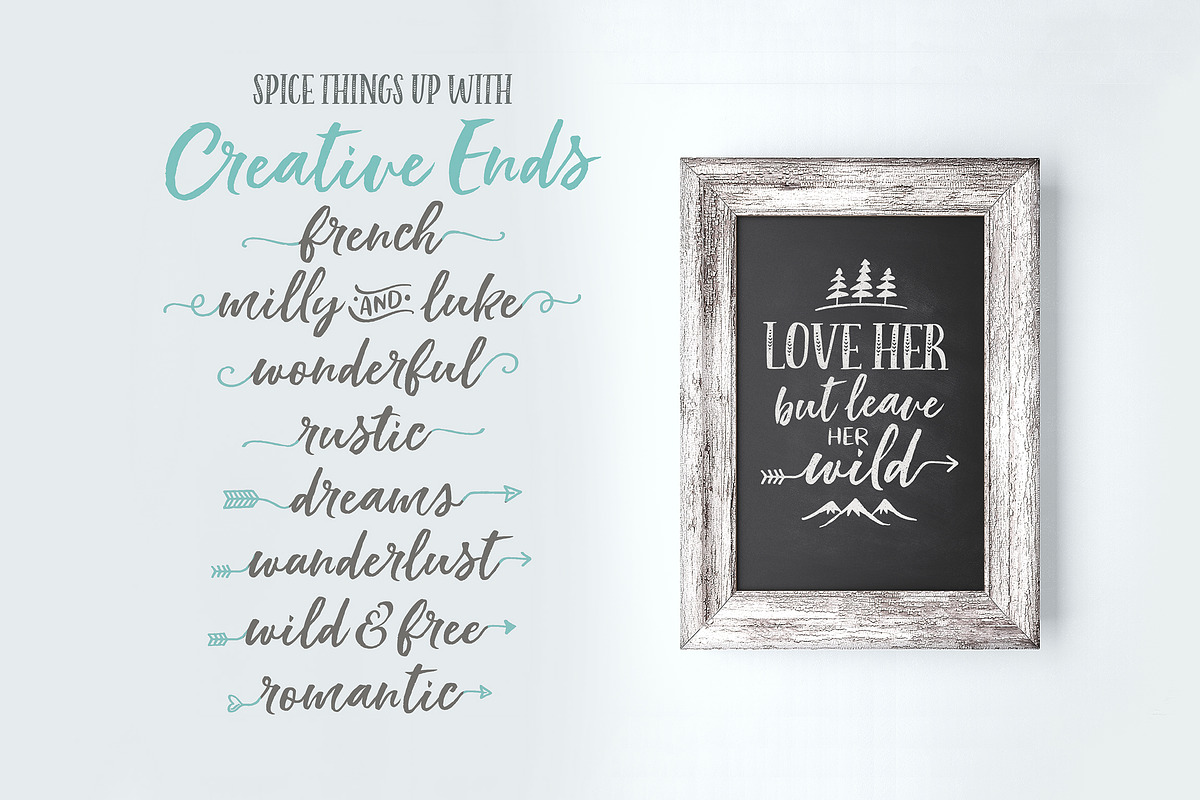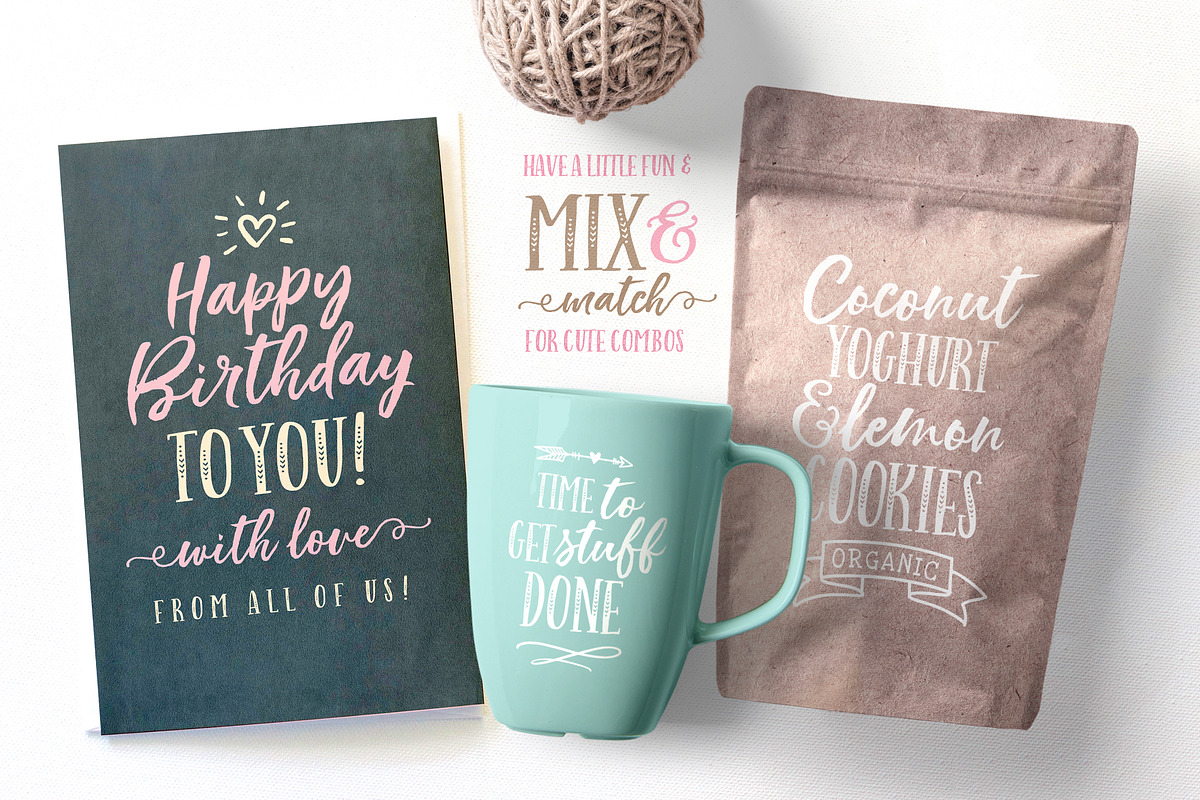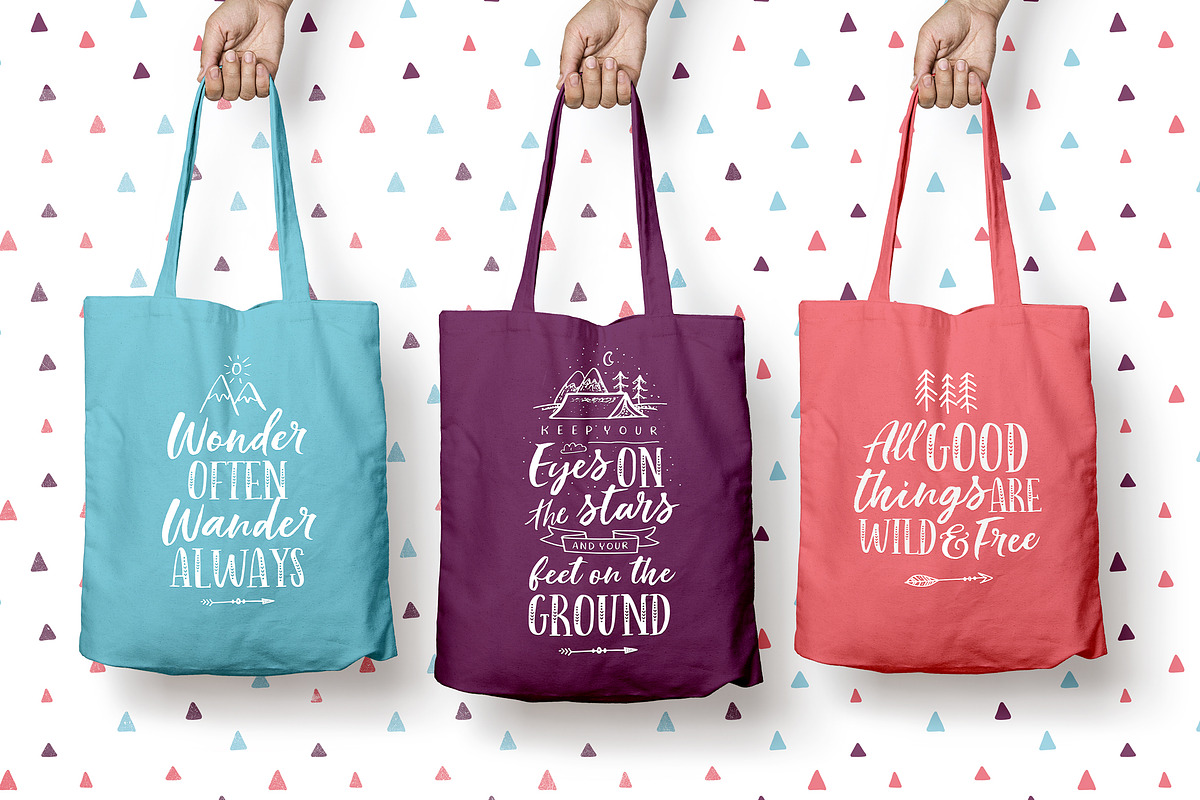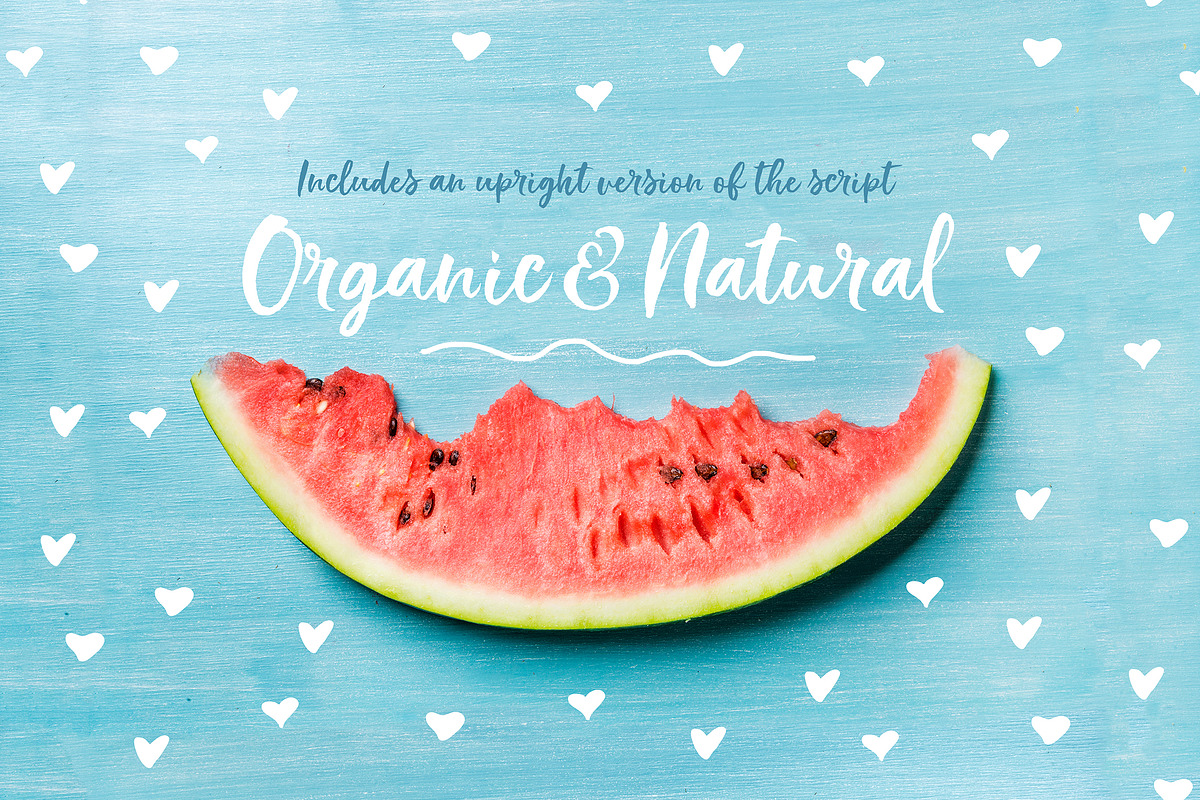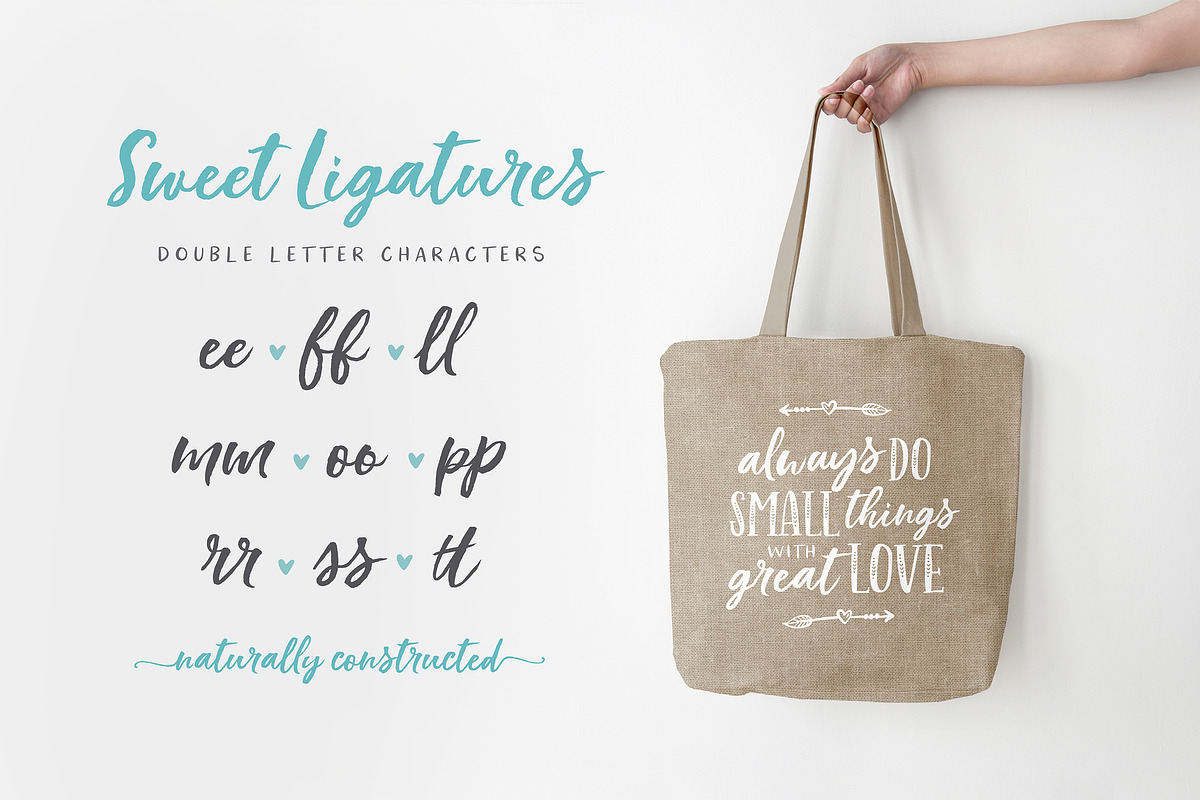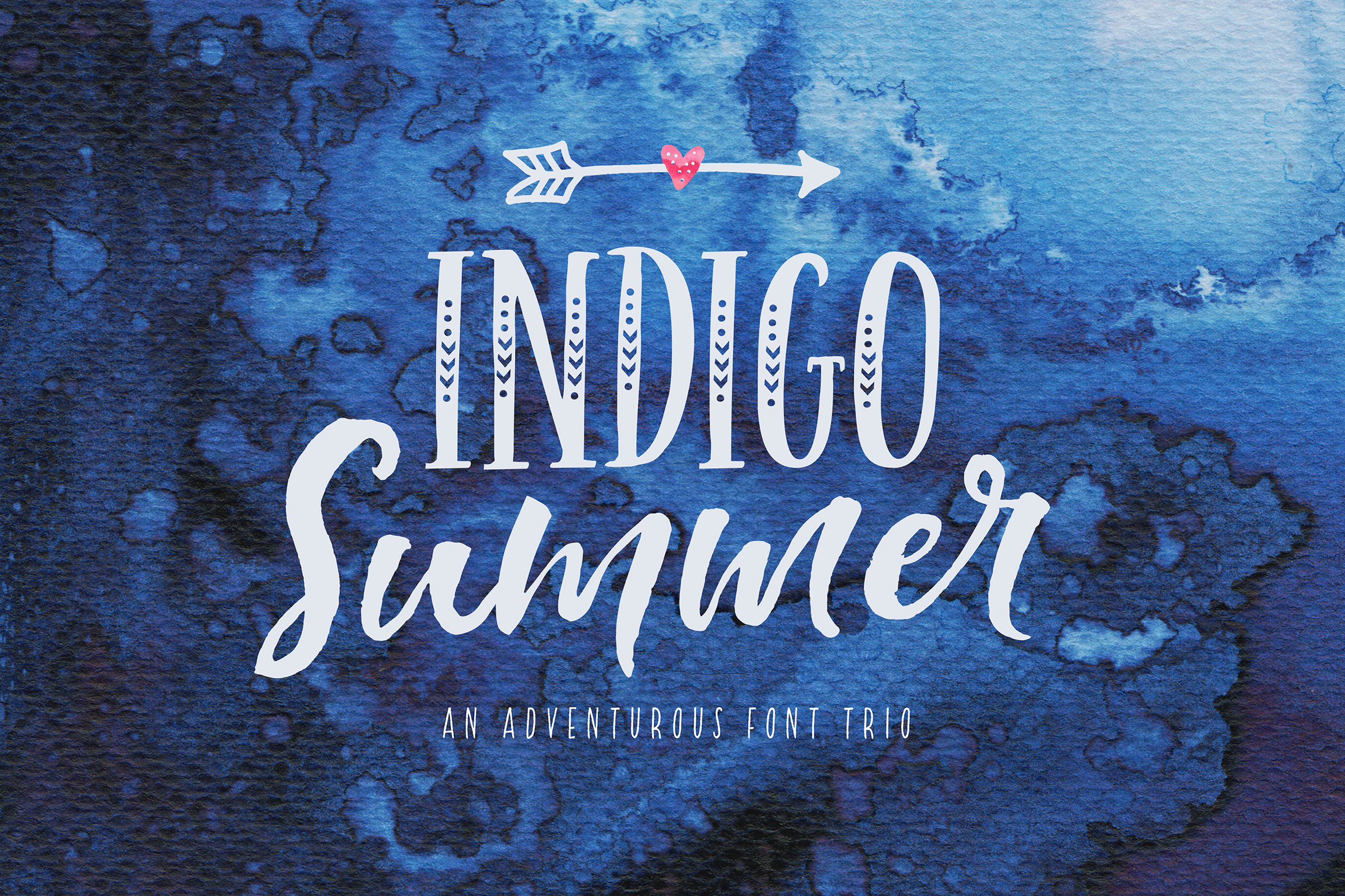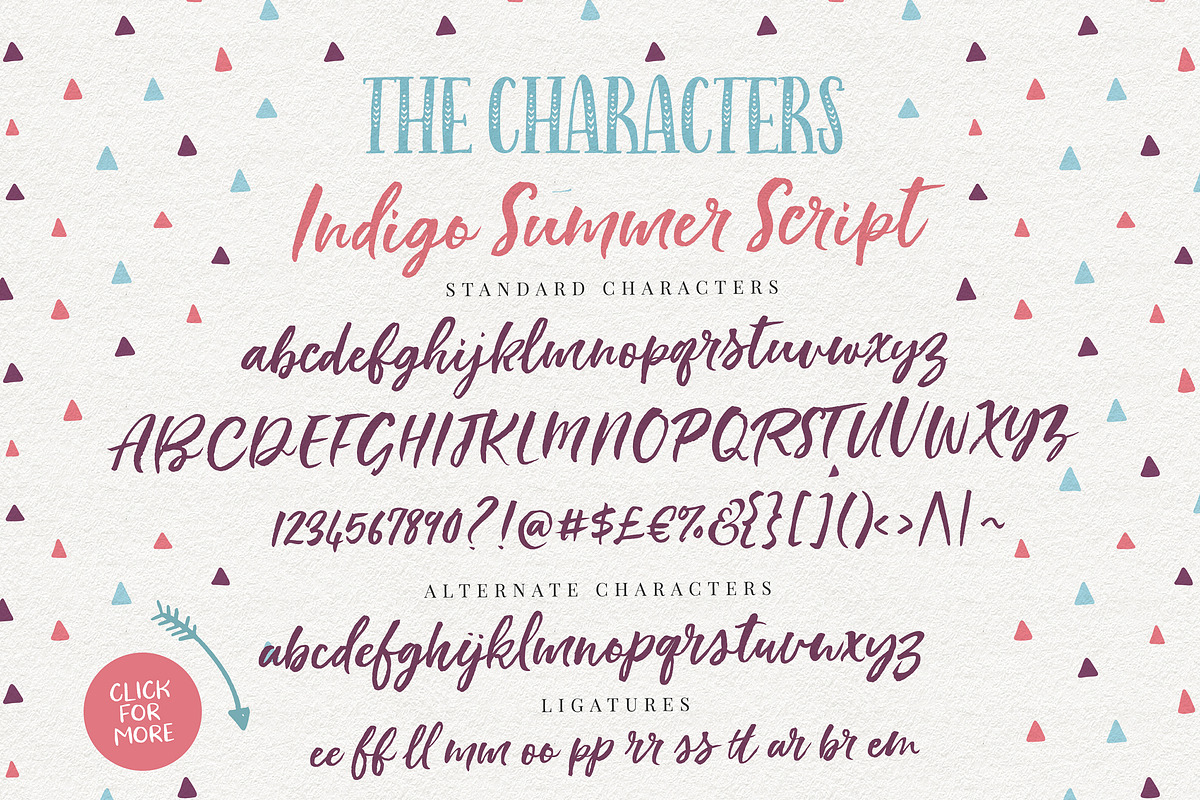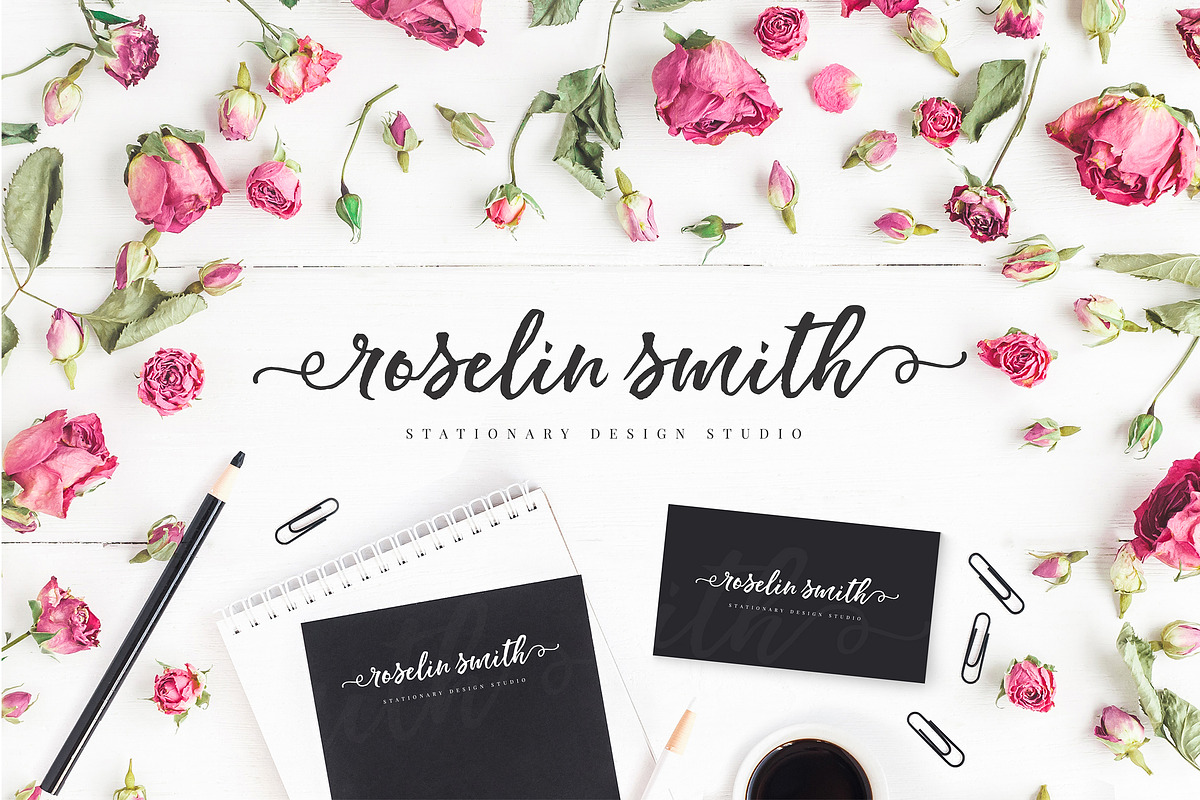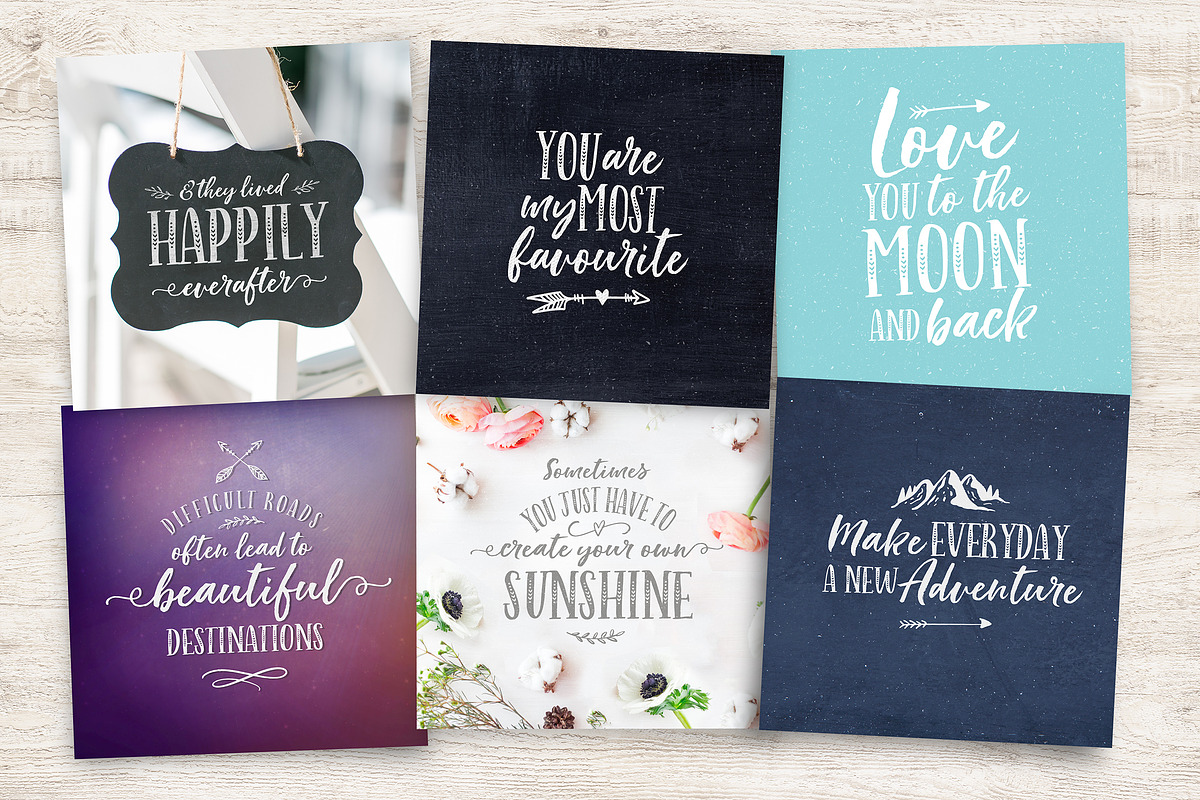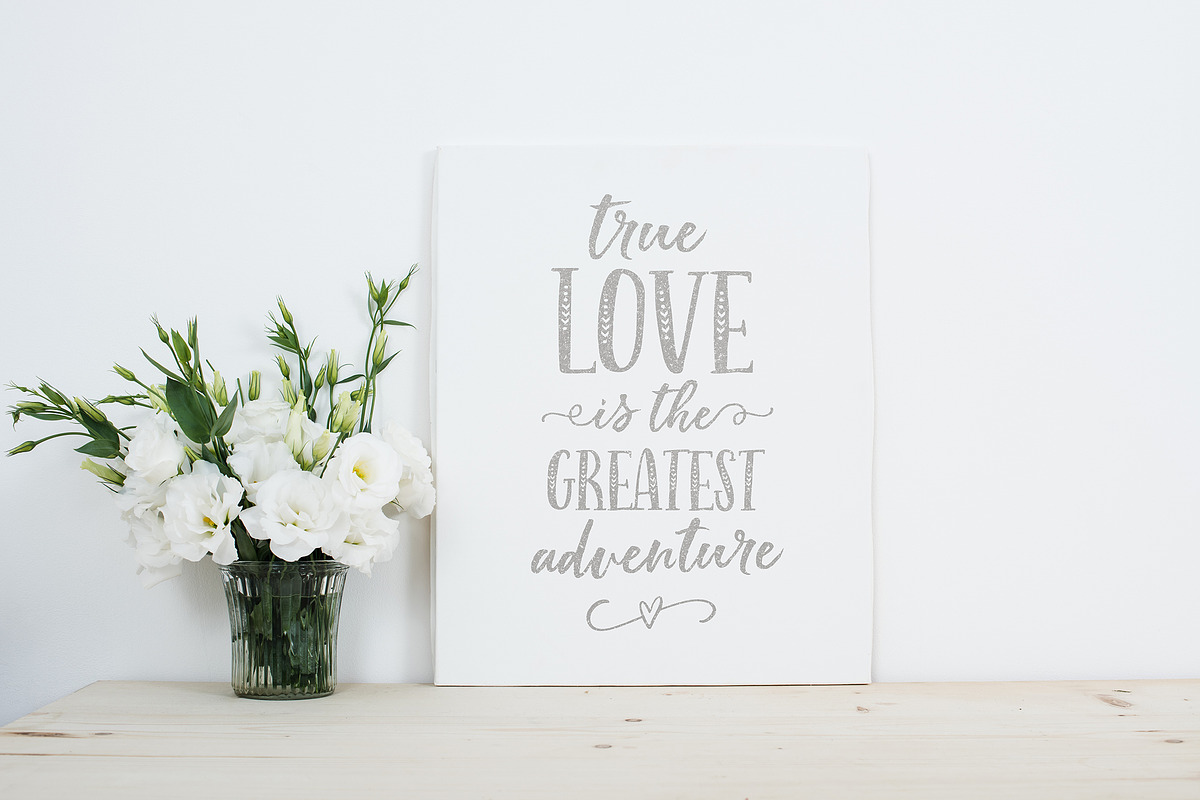
Indigo Summer Font Trio
It's time to take a little time out and get PLAYFUL with a brand new rustic font trio that loves a good adventure! :)
Introducing the Indigo Summer Font Trio , a happy trio of hand lettered and brushed fonts (with extras), all designed to compliment each other perfectly in typographic designs, yet stand beautifully on their own , each with it's own unique personality.
❥ END and BEGINNING swashes : From rustic arrows to twirly curls, you can choose between 8 lovely end swash sets to add onto your lowercase start and end letters. If you don't have Opentype capable software, there is a separate Swashes TTF font for you to use for typing out the swashes.
❥ ALTERNATE letters : The script has a full set of lowercase alternate characters and double letter ligatures to make your design look super natural.
❥ 160 FUN ILLUSTRATIONS & Dingbat Fonts that don't require special software : To add to the adventure and fun you will be having with this pack, I've included over 160 hand-drawn vector elements to add a plash of adventure to your designs! They come in various handy formats - even as a handy dingbat font!
- Indigo Summer Script Font - A hearty, hand painted, wobbly-edged brush font with an alternate set of lowercase letters and 8 swash sets )
- Indigo Summer Upright Script Font - An upright version of the script.
- Indigo Summer Serif Font - A happy, handwritten rustic all caps font with.
- Indigo Summer Serif Solid Font - A solid , filled version of the above font.
- Indigo Summer Sans Serif Font - A simple complimentary block font perfect for smaller text.
- Indigo Summer Swashes Font - Type the swashes onto the start end of words.